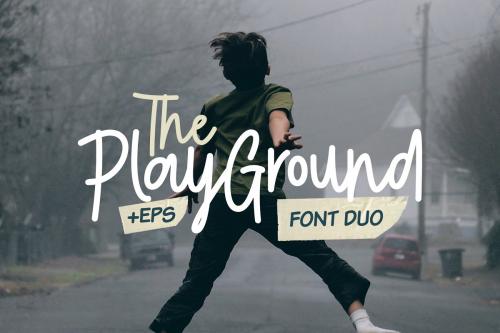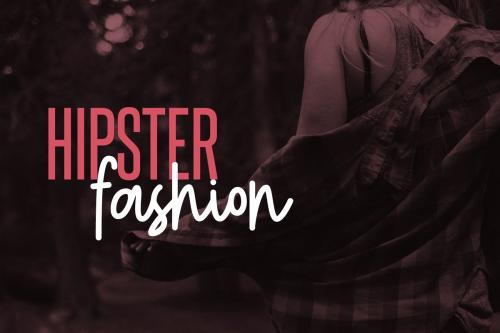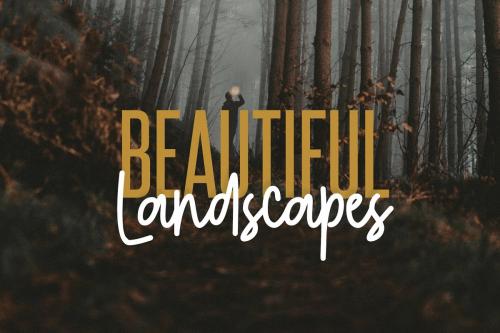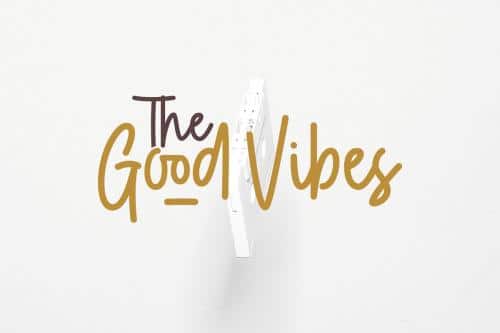
Play Ground is a fancy hand-lettering script font with cute styles this font is great for your next creative project such as logos, printed quotes, invitations, cards, product packaging, headers, Logotype, Letterhead, Poster, Apparel Design, Label, and etc.
Play Ground comes with 2 styles also with uppercase, lowercase, numerals, punctuations, common ligatures and also additional vector elements to let you customise your designs.